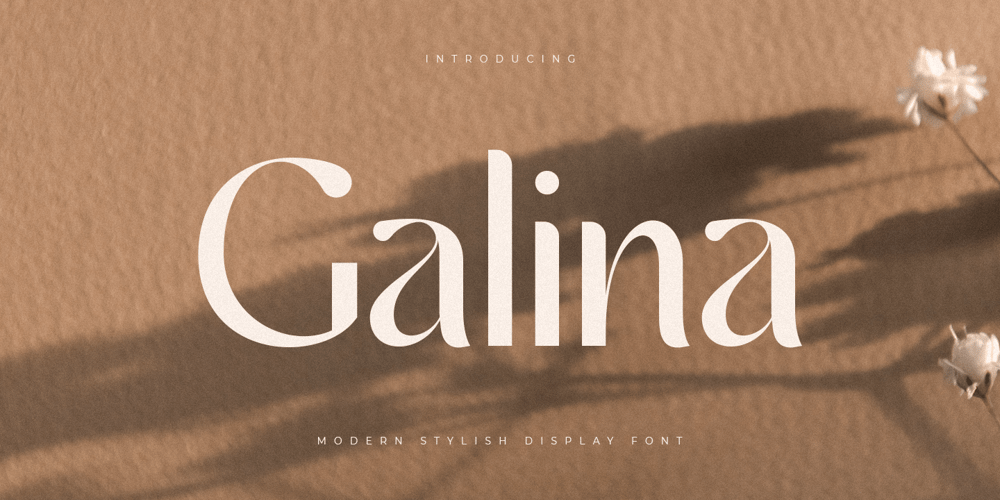
Galina Font Family was designed by Zamroni Hamzah and published by Sensatype Studio. Galina contains 2 styles and family package options. A Unique Display Logo Font that we created special for Beauty and Modern branding needs that will give you more elegant look. And specially for this font, We prepared any alternate characters to help you create unlimited variations for your creative needs.Galina Display Logo font ready with: Any options to get creative variations (combination of Alternates) Preview as a inspirations that you can do with Galina font Ready with Lowercase and Uppercase characters Wish you enjoy our font. ๐